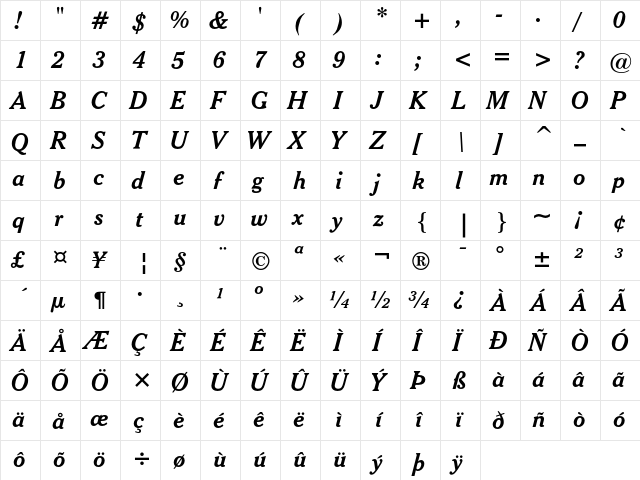
Cheltenham Bold Italic Headline
Design Context for Cheltenham Typeface
Cheltenham is a composed and adaptable typeface that performs quietly and consistently across a wide range of design contexts. The dynamic lean of this cut emphasises speed and emphasis in any layout. The heavy weight commands attention and anchors typographic hierarchies.
Pro Tip: Try Cheltenham for annotation and caption copy alongside an upright companion — the contrast in angle creates a dynamic but ordered typographic system.